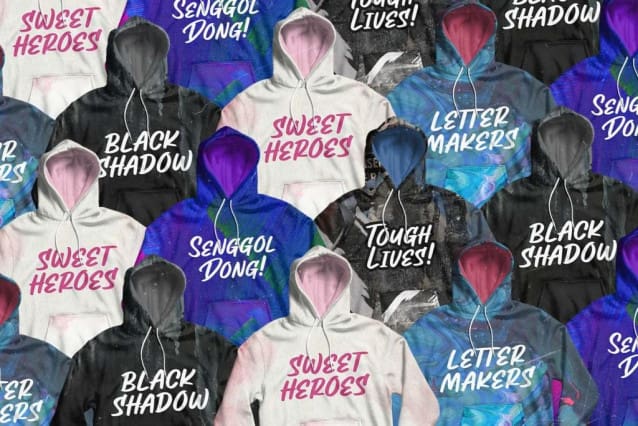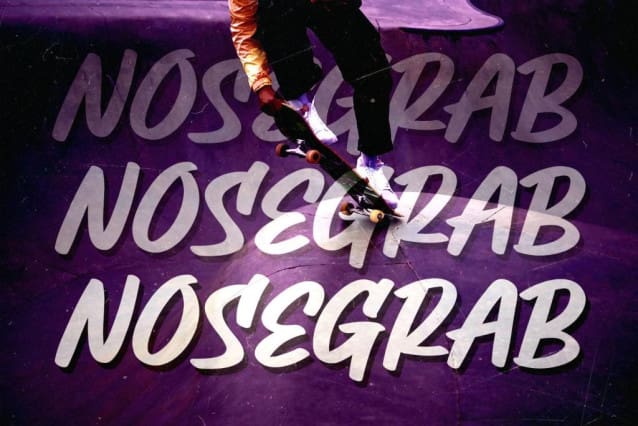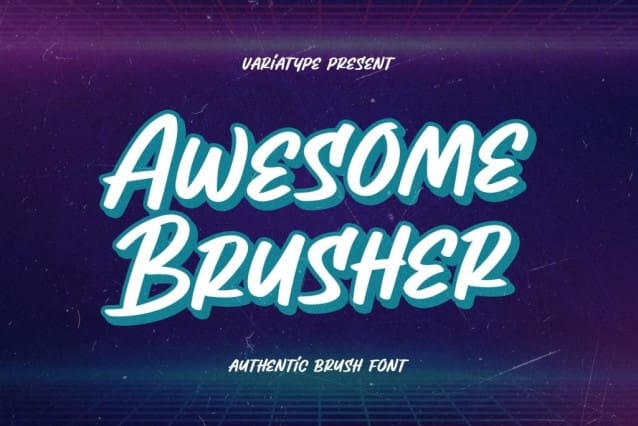
Awesome Brusher Font
Awesome Brusher Font the iconic street brush font that is designed for headline use, printed on t-shirts, hoodies, packaging, poster, advertisement, branding, and much more. Perfectly match your design project with an urban or street-style theme.